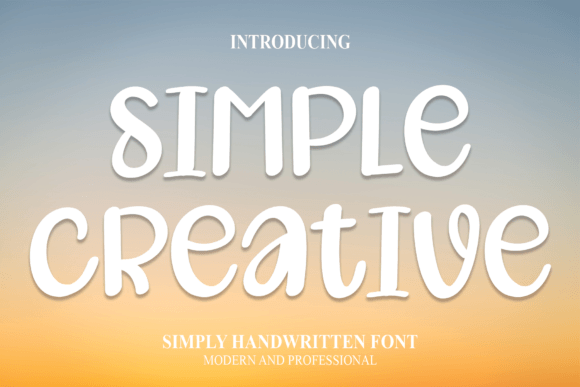
Introducing the Simple Creative Font: A Handwritten Gem for Your Creative Endeavors
Step into a world of effortless elegance with our enchanting Simple Creative Font – a script typeface that exudes warmth and charm. Handcrafted with meticulous care by the renowned designer, William Jhody, this font captures the essence of handwritten beauty, bringing a touch of artistry to your digital designs.
Indulge in the versatility of the Simple Creative Font, a true chameleon that adapts seamlessly to a myriad of creative projects. Whether you're crafting digital masterpieces, designing captivating presentations, or sending heartfelt greetings, this font has the power to transform your words into works of art.
The Simple Creative Font is not just a font; it's a gateway to expressing your unique personality and style. Its unpretentious charm lends an air of authenticity to your creations, inviting your audience to connect with your message on a deeper level.
Picture your social media posts adorned with the graceful curves of the Simple Creative Font, capturing the attention of your followers and sparking meaningful conversations. Envision your website adorned with this elegant typeface, guiding your visitors through an unforgettable online experience.
Join the countless creative souls who have discovered the magic of the Simple Creative Font and let your imagination soar.
With its versatility, warmth, and undeniable charm, the Simple Creative Font is more than just a typeface – it's an essential tool in your creative arsenal, empowering you to make a lasting impression with every stroke of your pen.